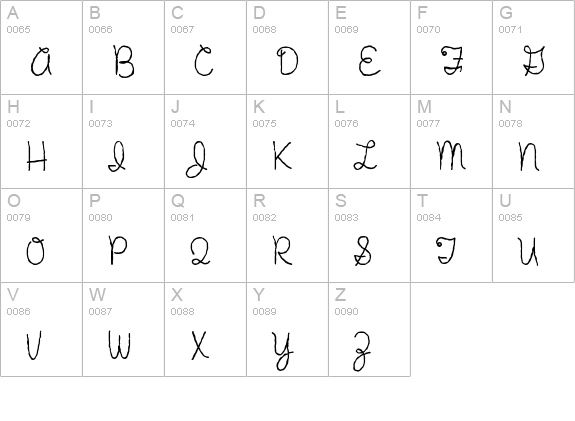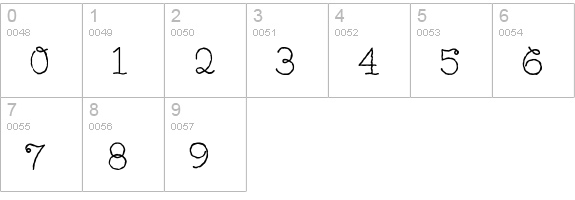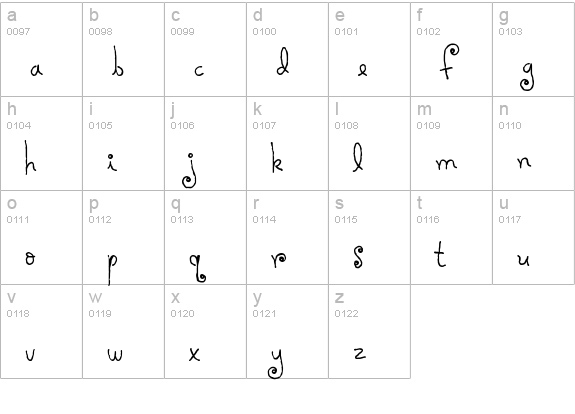
Holiday Springs BTN Wobbly Font Details
Holiday Springs BTN Wobbly font is a fun and playful typeface perfect for adding a touch of whimsy to your designs. With its wobbly and irregular letterforms, this font exudes a sense of cheer and lightheartedness, making it ideal for holiday-themed projects, greeting cards, invitations, and more. What makes Holiday Springs BTN Wobbly font even more appealing is that it is completely free to download at FontsMarket.com. You can easily add this unique font to your collection without any cost, allowing you to unleash your creativity without breaking the bank. Embrace the festive spirit and let Holiday Springs BTN Wobbly font bring a touch of joy and excitement to your next design project. Download it today and start creating with this delightful typeface!